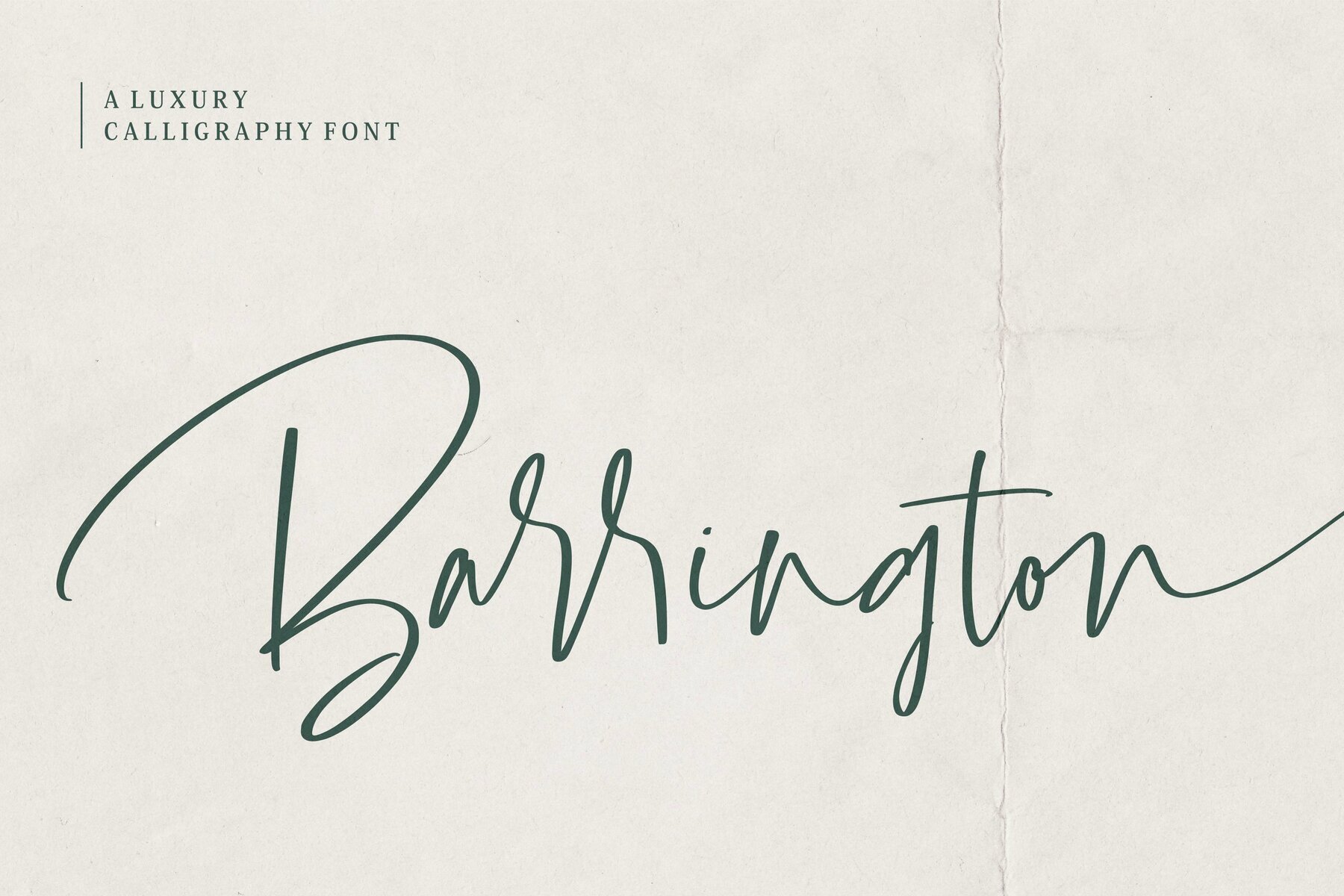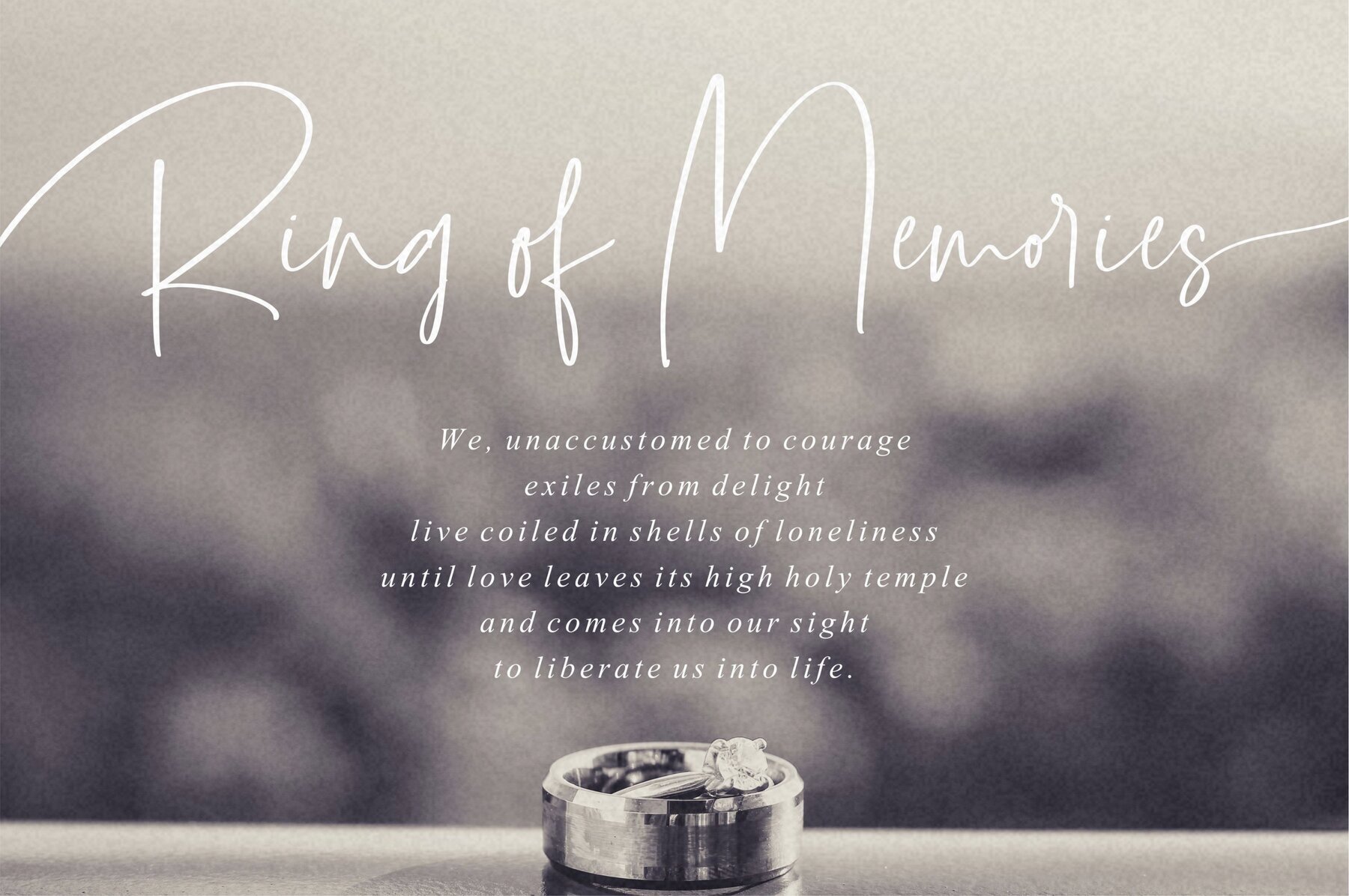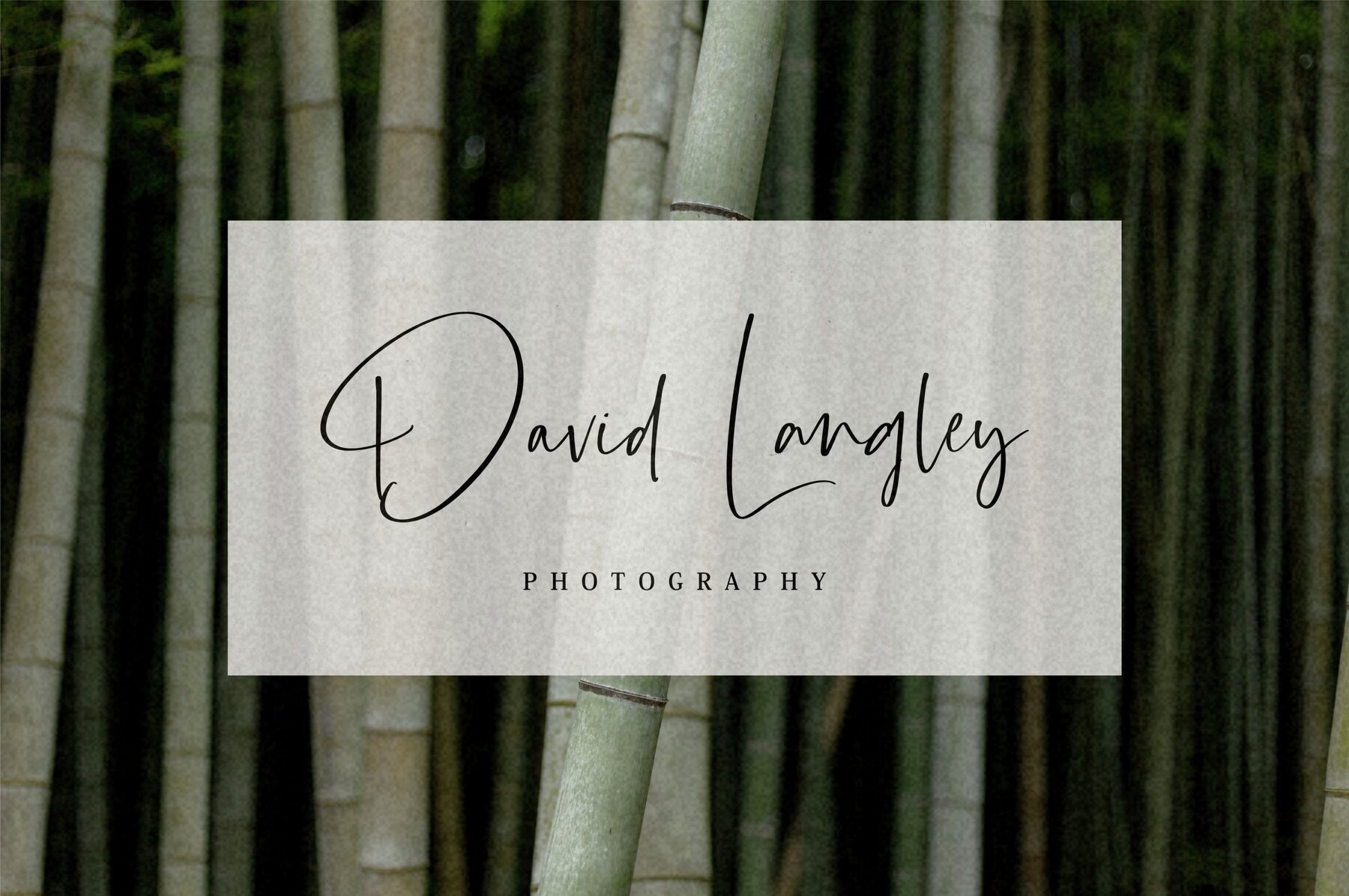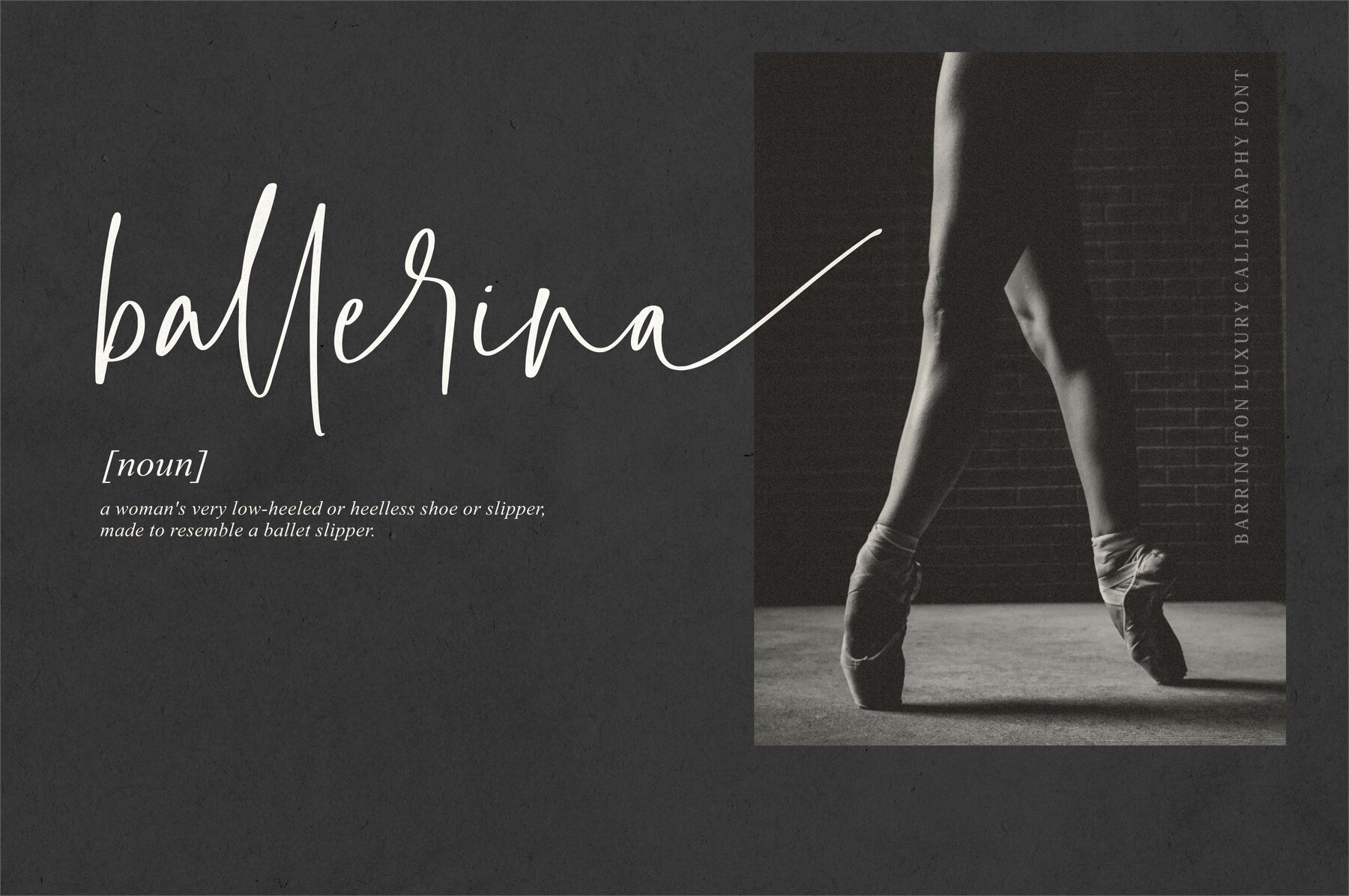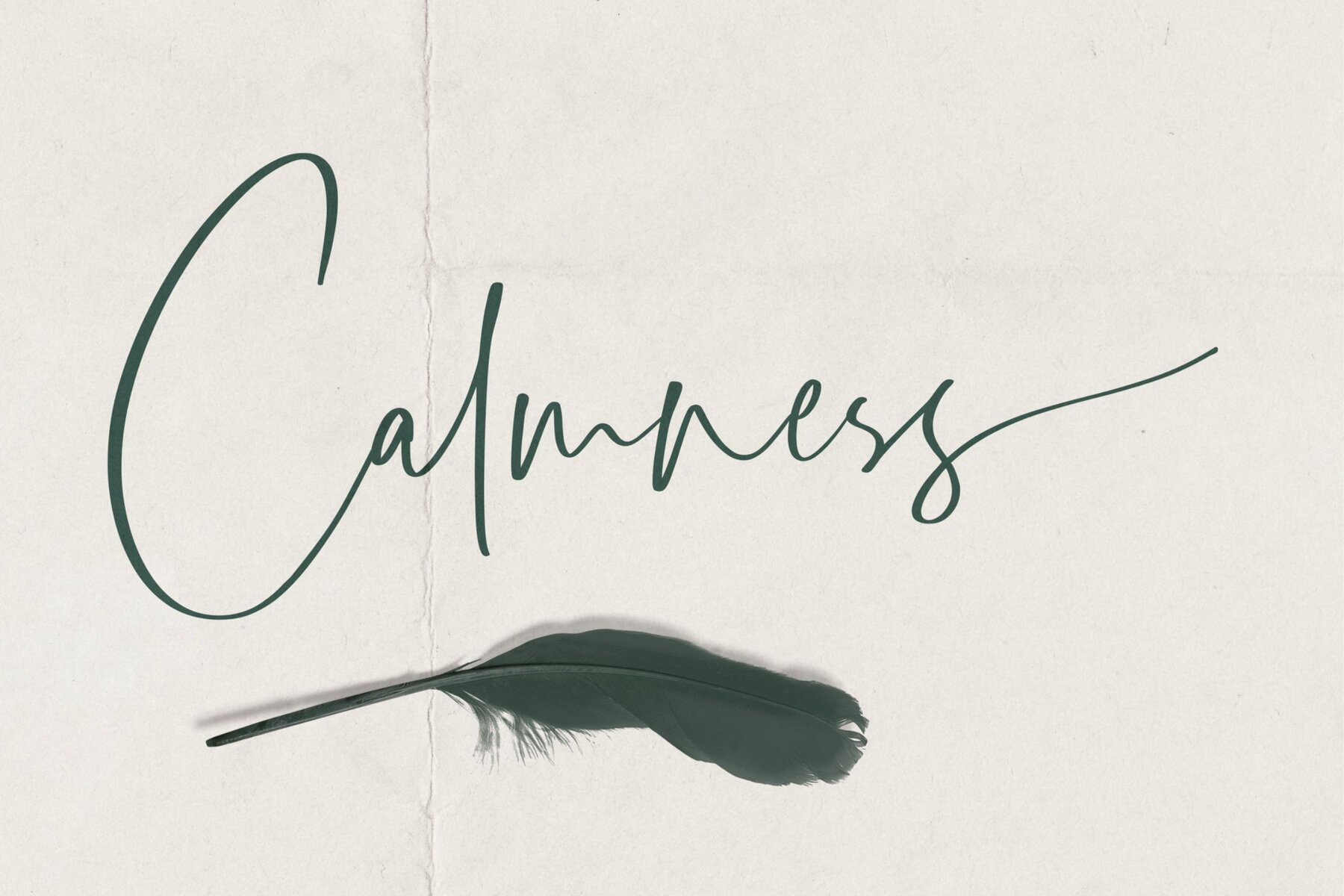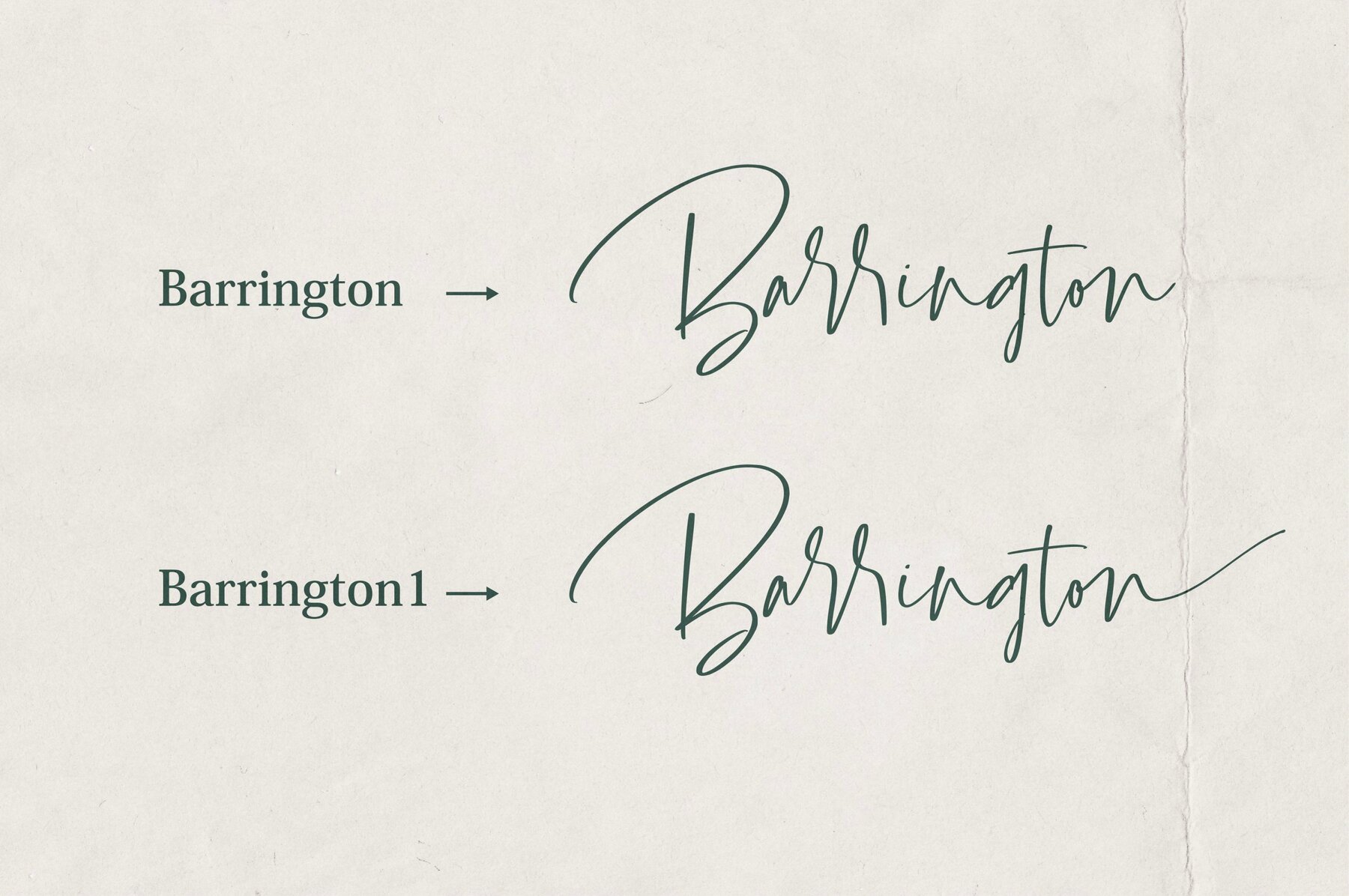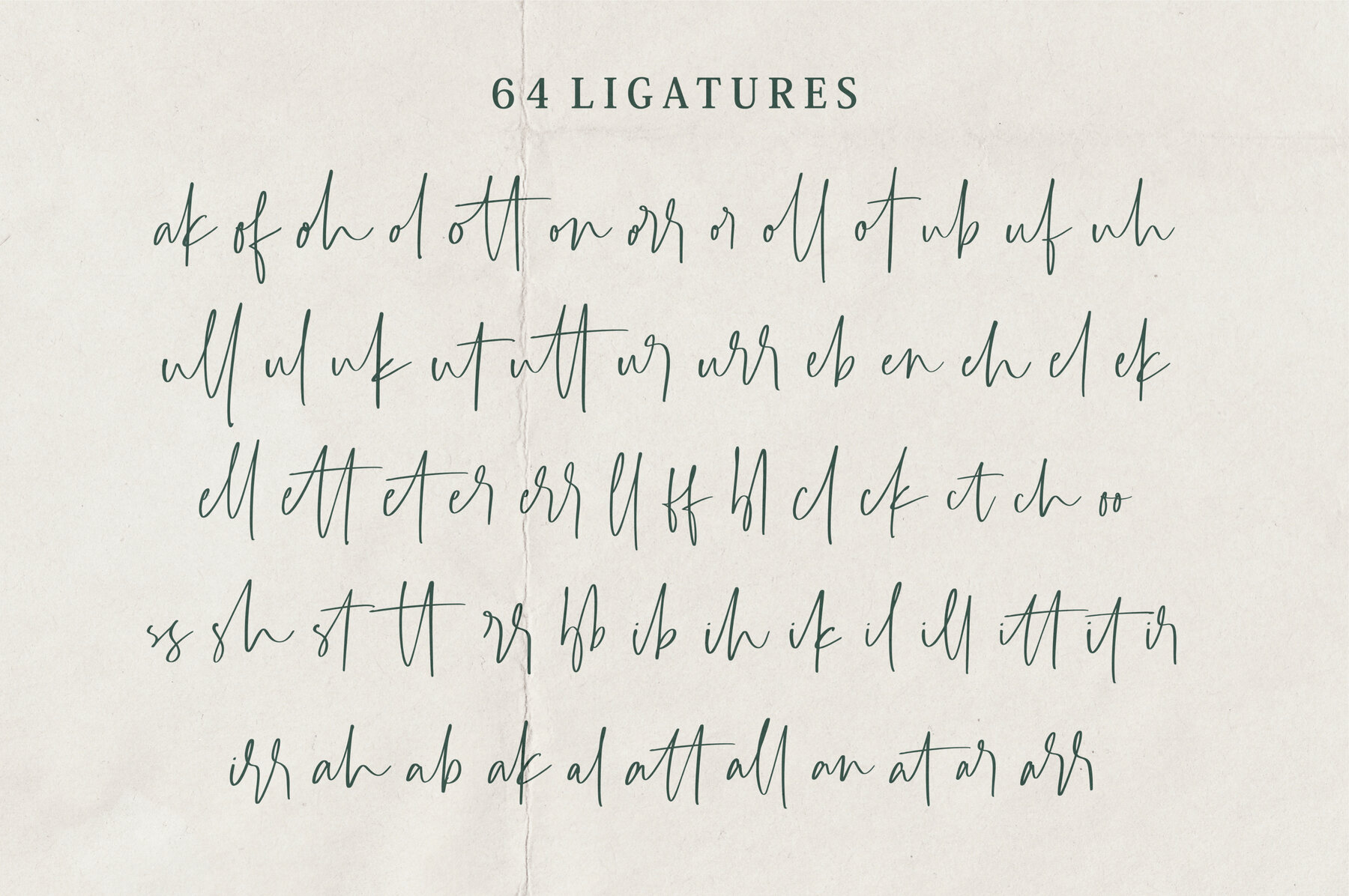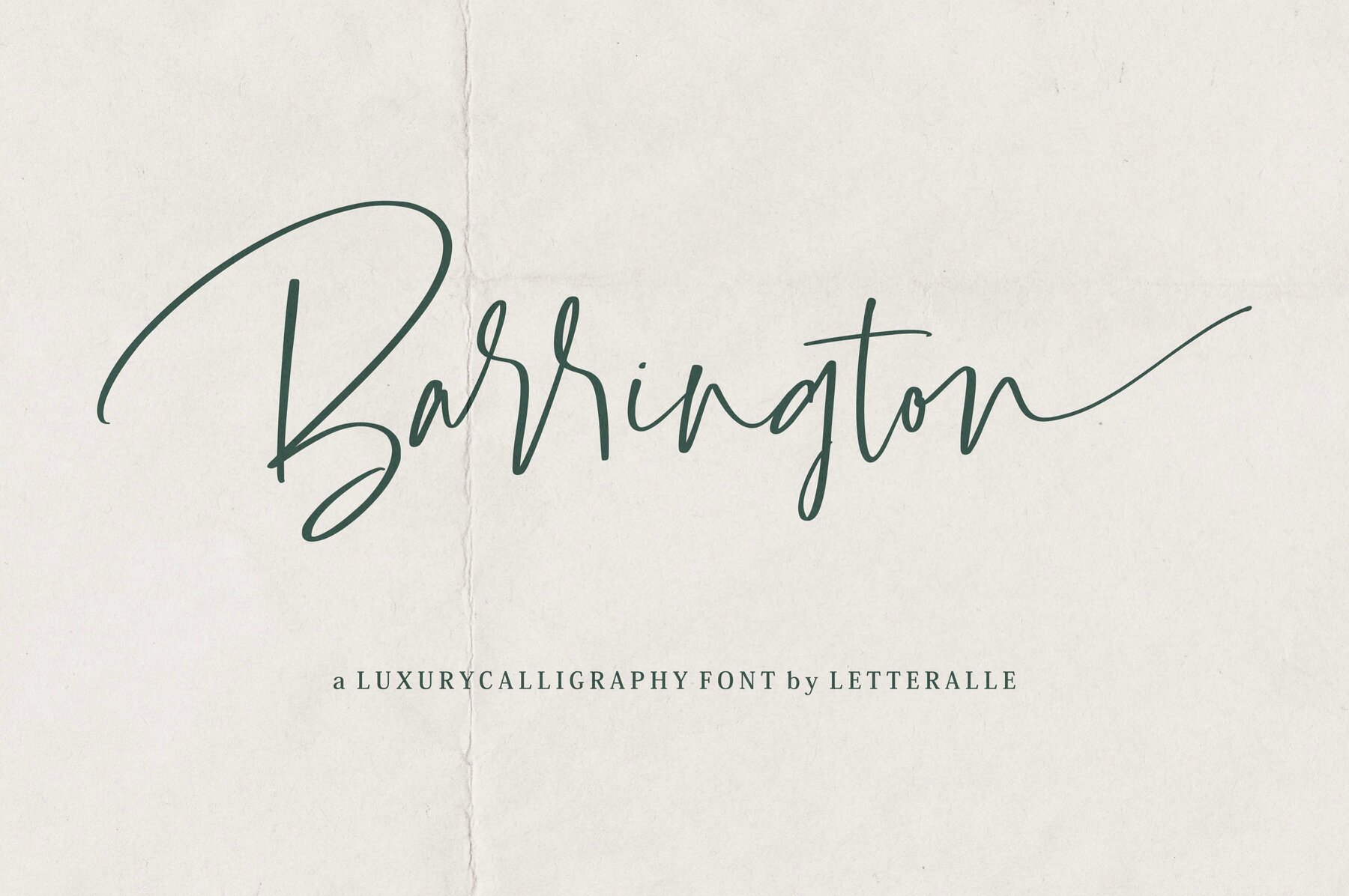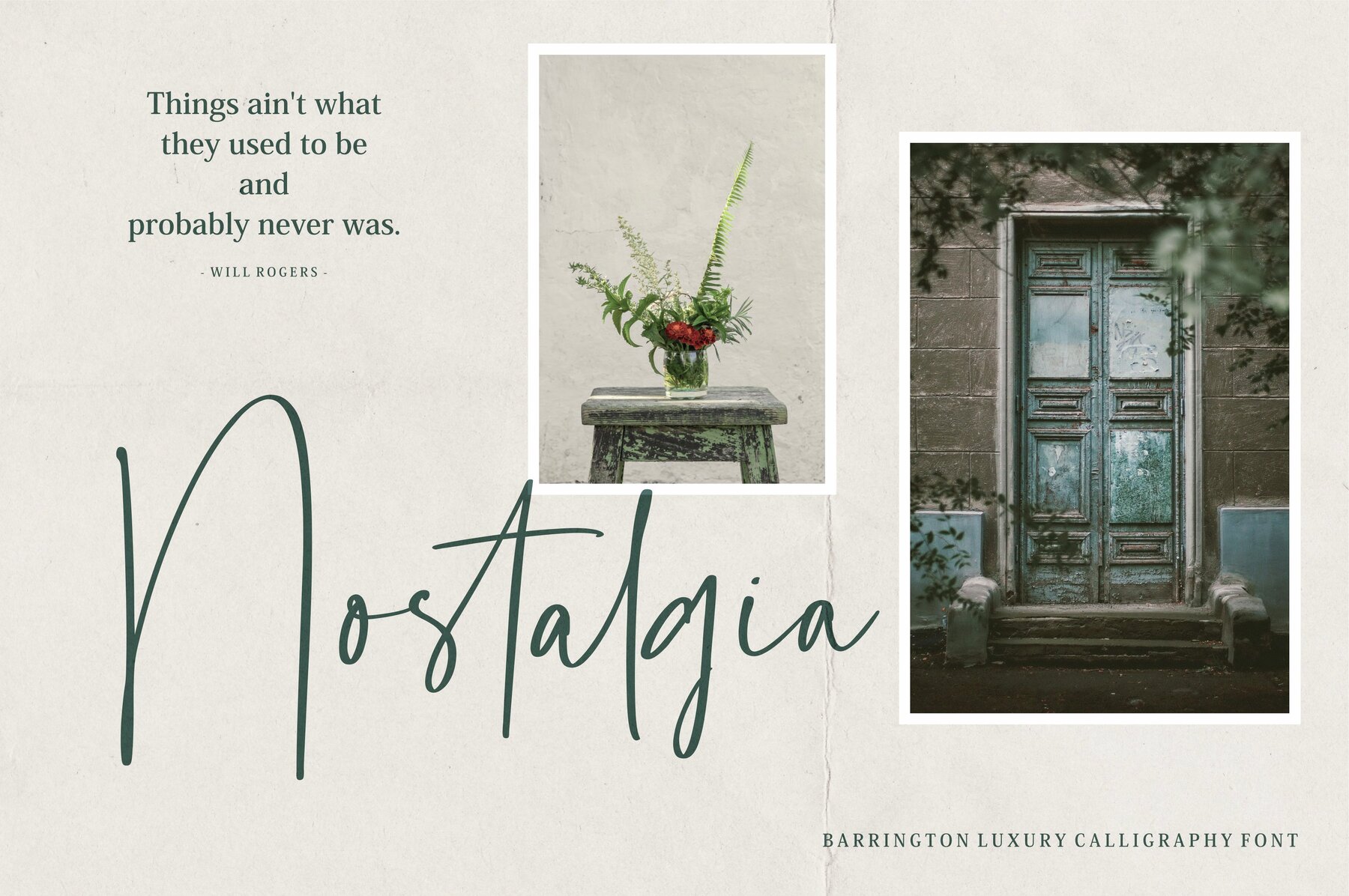
Barrington Font
Barrington Regular
Introducing Barrington, a luxurious and relaxed font that brings elegance to your design projects. With 64 ligatures for a natural touch, uppercase alternates for varied styles, and a simple ending swash feature, Barrington is easy to use. Just add the number "1" at the end of a word like "Barrington1" to apply the swash.
Ideal for branding, logos, product packaging, article titles, book covers, stationery, and more. Enhance your creative projects with the stylish and versatile Barrington Font.